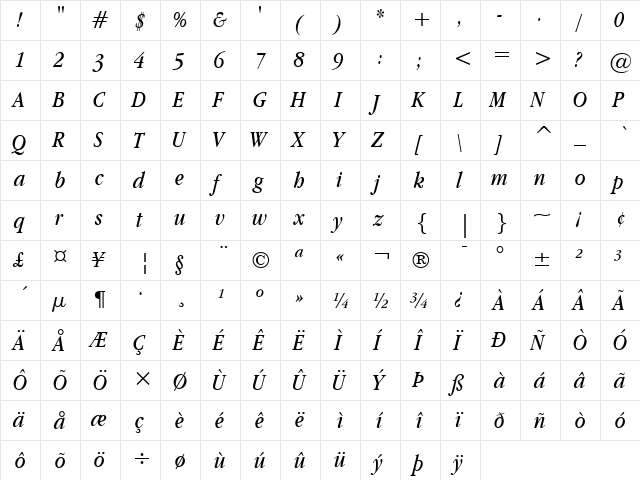
Apple Garamond BT Italic
Design Context for Apple Garamond BT Typeface
Apple Garamond BT takes a measured approach to typography — its balanced proportions and neutral character make it a reliable workhorse for both digital and print work. The dynamic lean of this cut emphasises speed and emphasis in any layout.
Pro Tip: Use Apple Garamond BT for emphasis, pull quotes, and subheadings where its slanted energy can add rhythm to the layout.